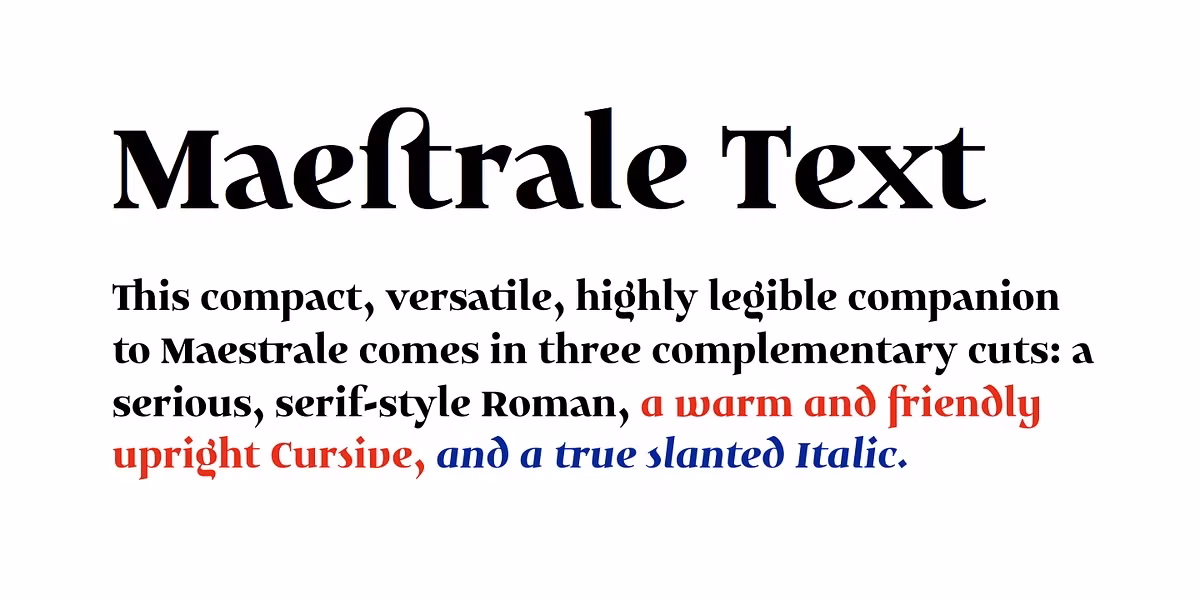
Maestrale Font Free Download is a refined and artistic serif typeface that blends classical elegance with contemporary design. Featuring high contrast strokes, stylish curves, and elegant details, Maestrale is ideal for editorial layouts, fashion branding, packaging, wedding invitations, and luxury logos.
Its sophisticated presence makes it a perfect choice for projects that demand both beauty and professionalism. Whether you’re designing a high-end magazine spread or a boutique identity, Maestrale brings timeless charm and modern sophistication to your typography.